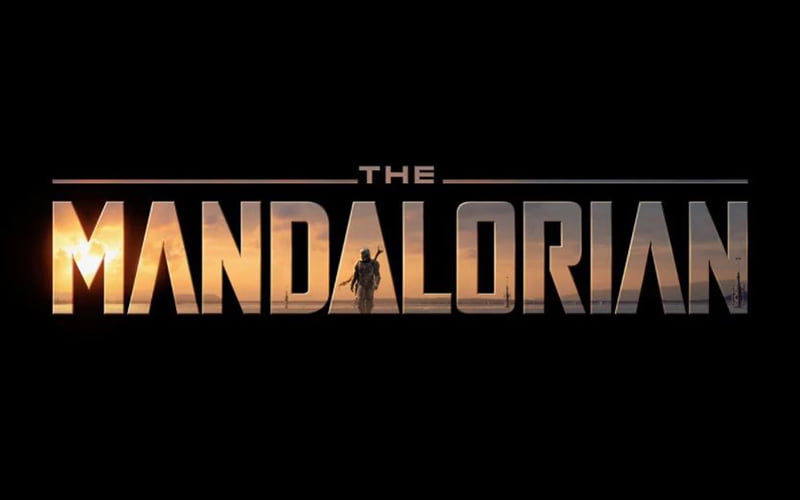
Introducing Mandalorian Font! This is a logo and techno typeface that we have seen in the Mandalorian title. It’s an American space Western web television series that was first released on 12, 2019.
So, today we are here with the logo font created by Daniel Zadorozny and released by Iconian Fonts on December 23, 2019.
This remarkable font belongs to the techno-fi typeface that comes with bold and thick textures. This font family comes in different 28 weights that possess Truetype file format.
Mandalorian Font
This awesome font has created bold strokes and the designer has increased the space between letters just to make it unique from the others. And the height also feels a little bit high than the standard size.